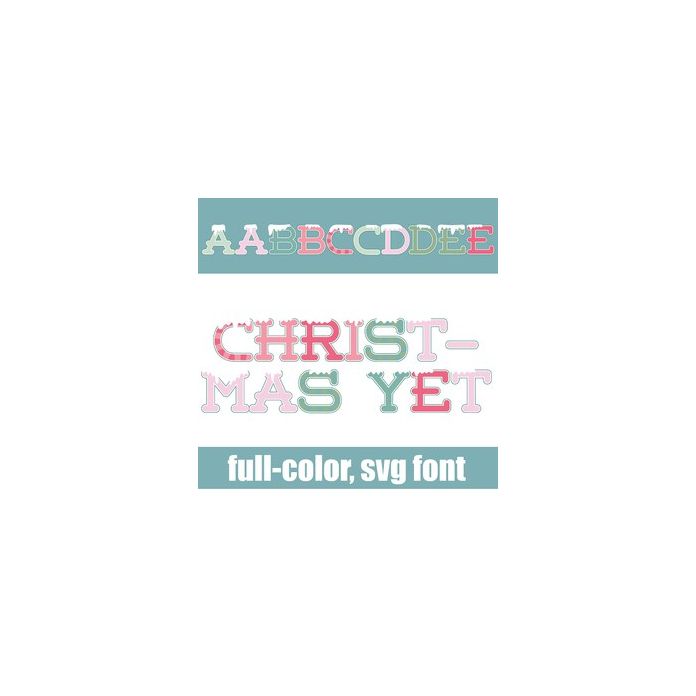
This full-color font features a pretty Christmas color palette and snow throughout. There is an alt case w/ additional colors you can access through your system or Silhouette's glyph map.